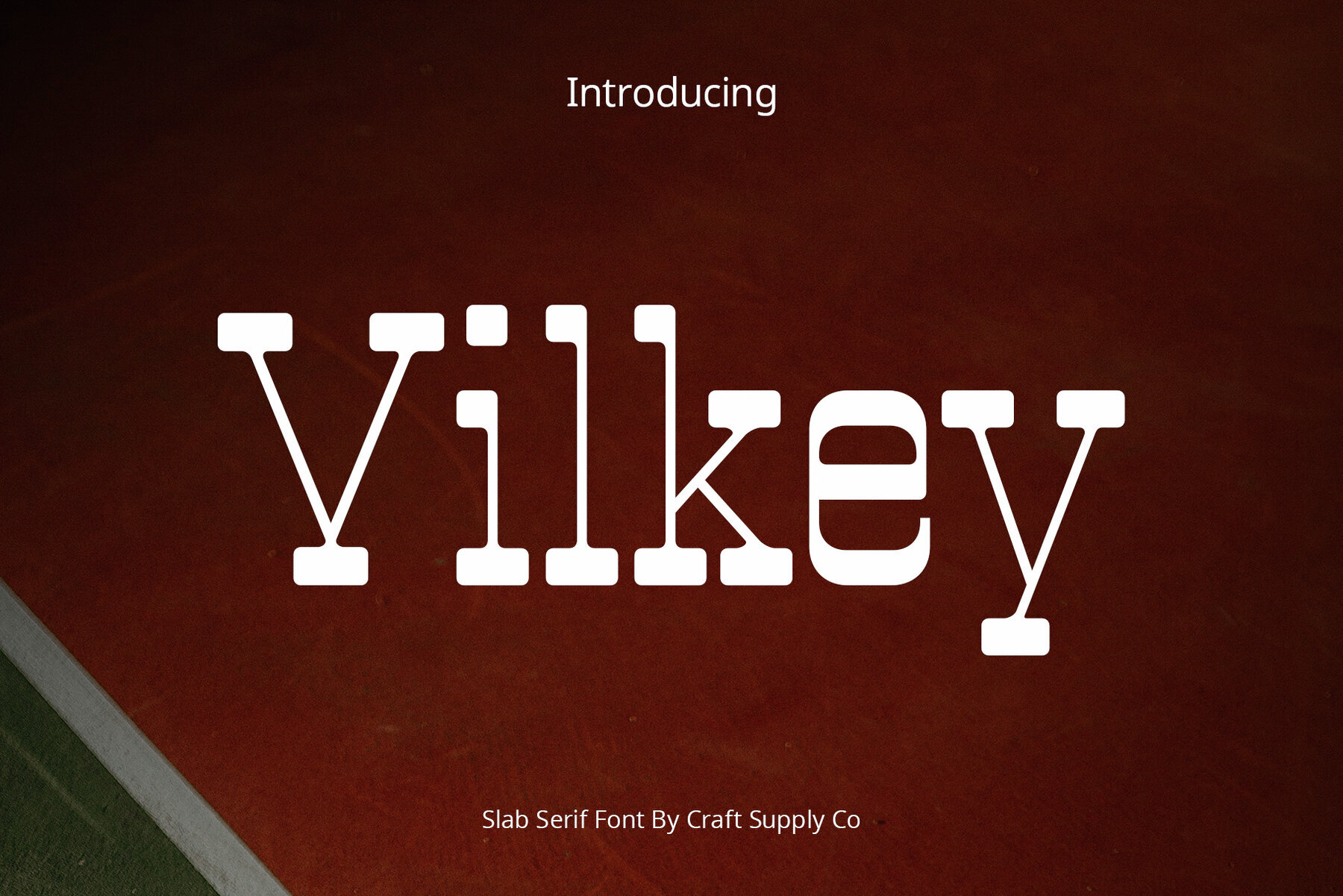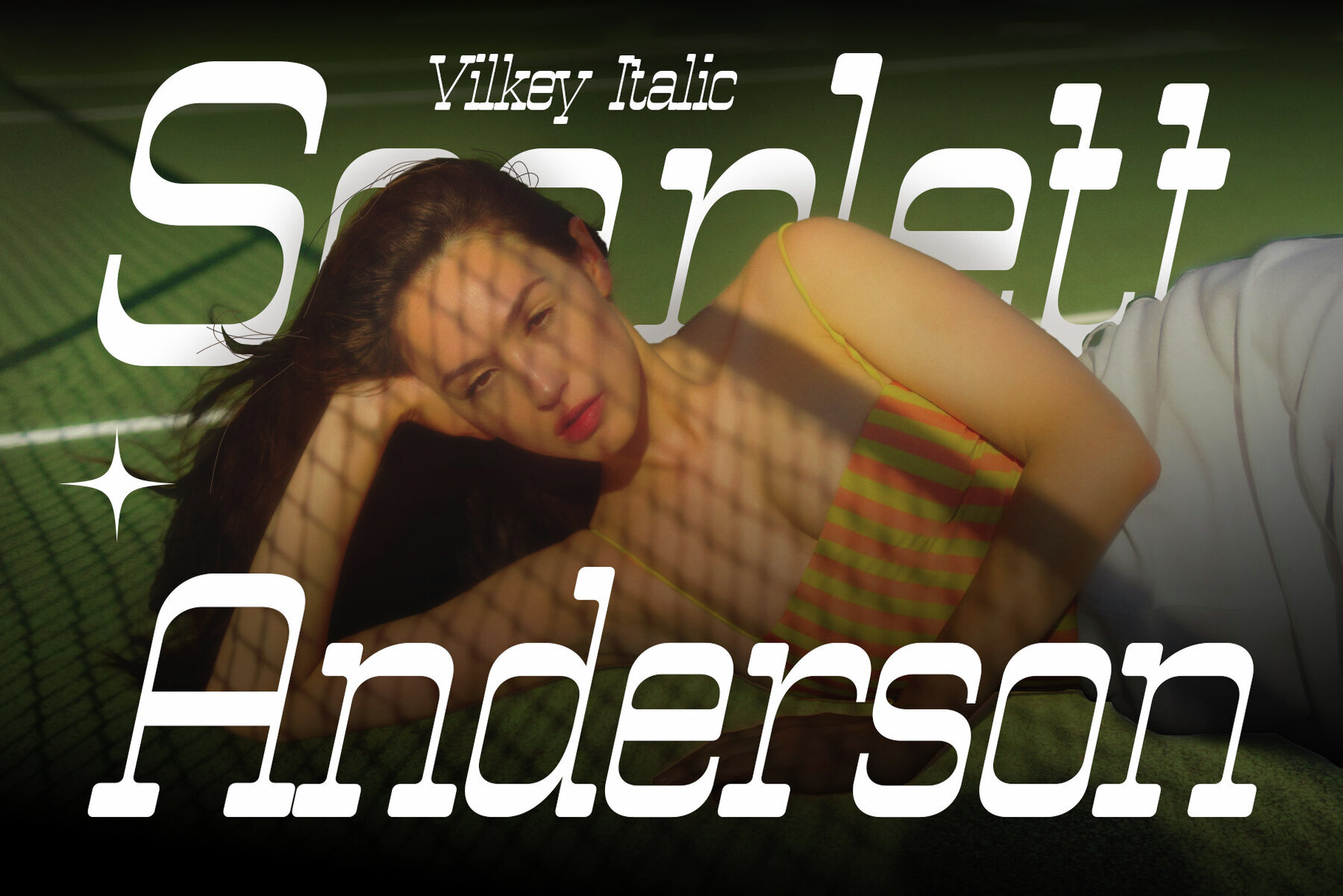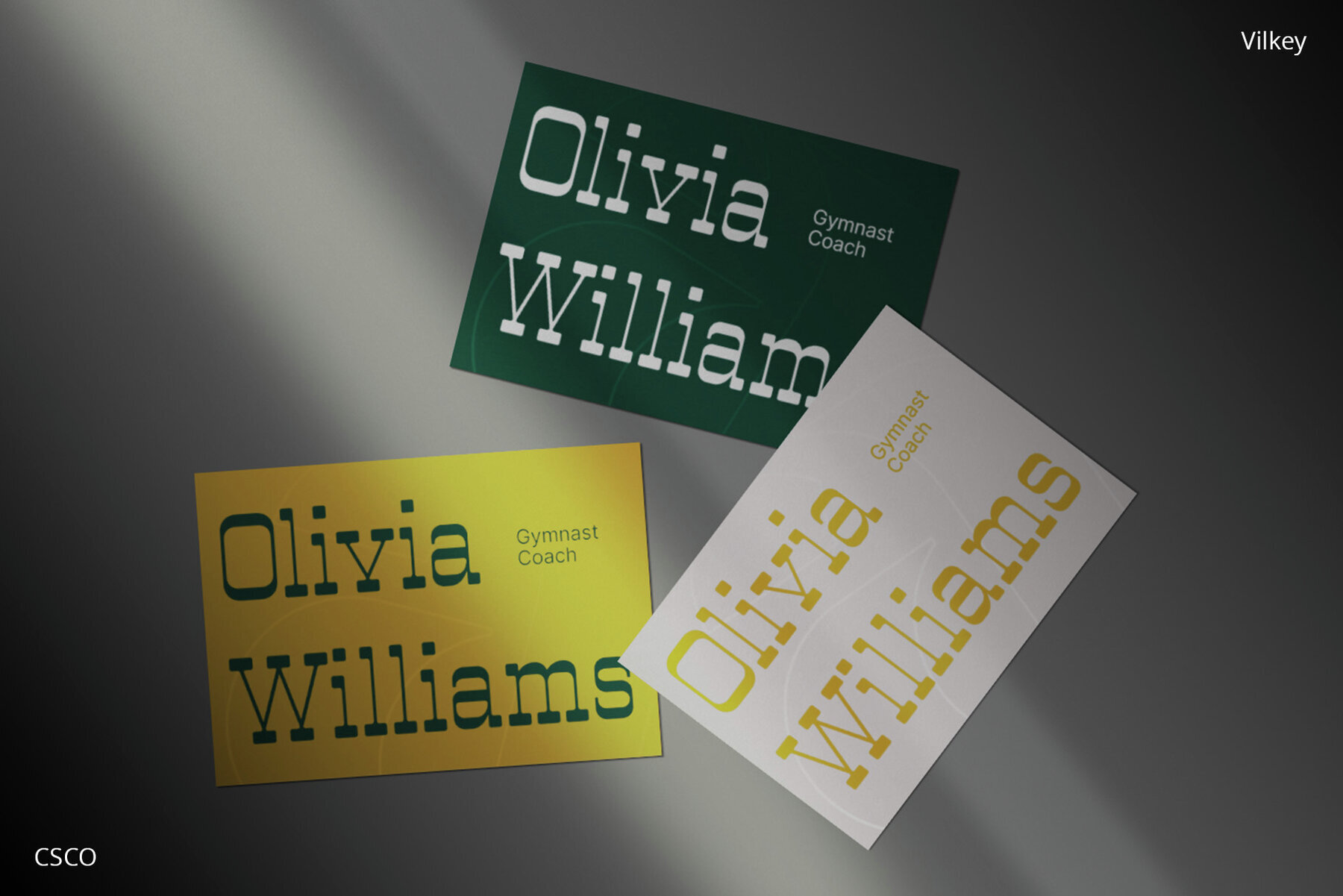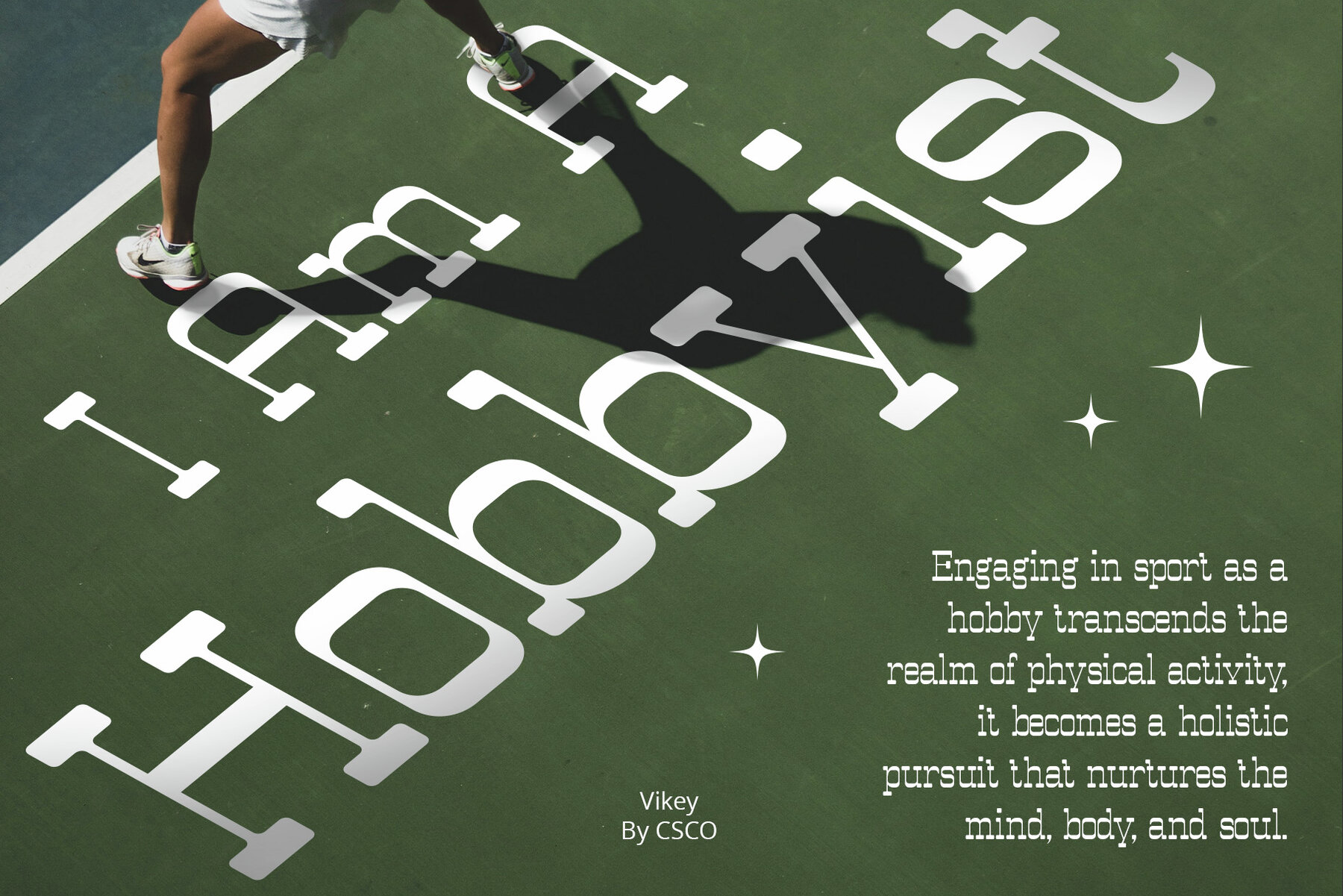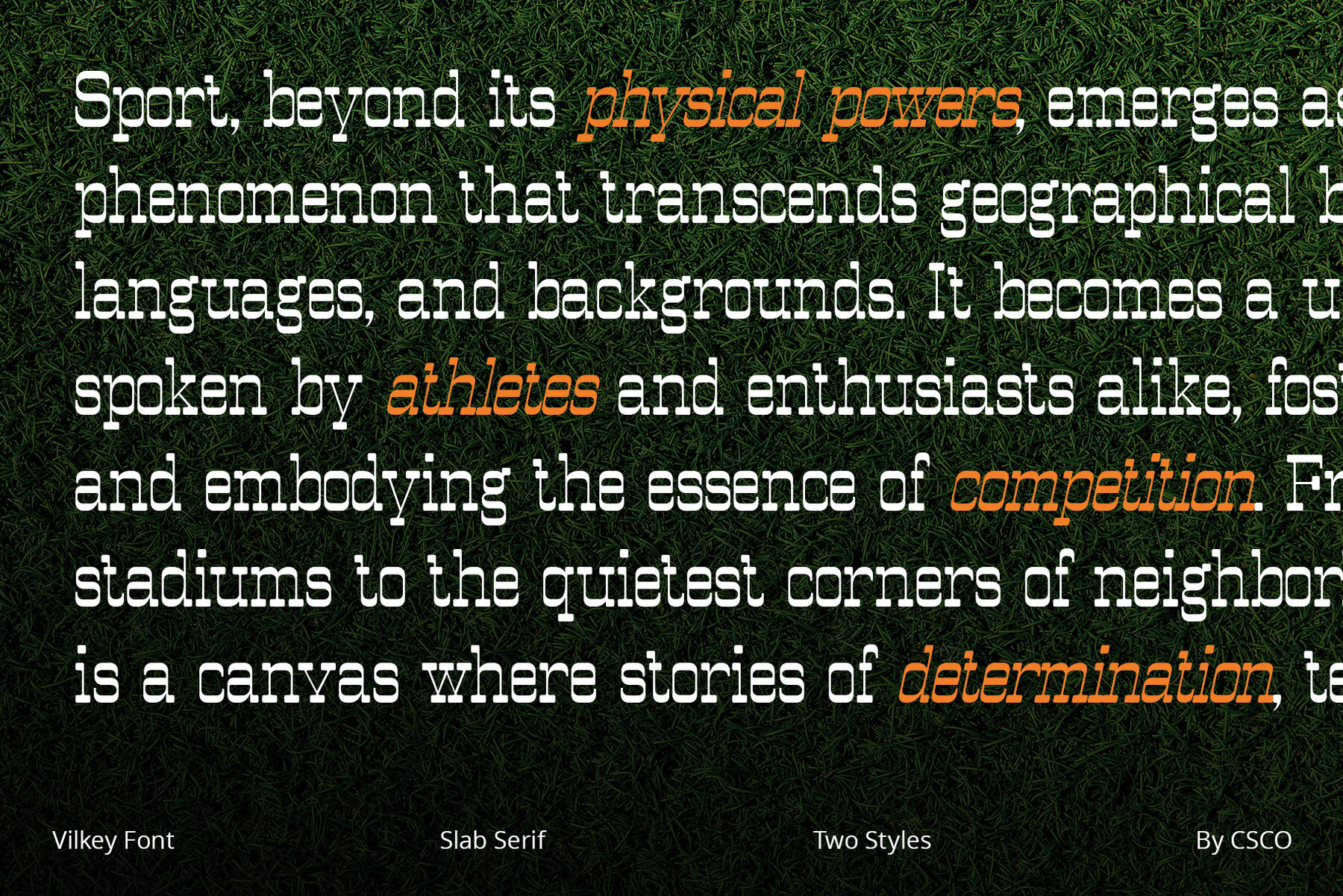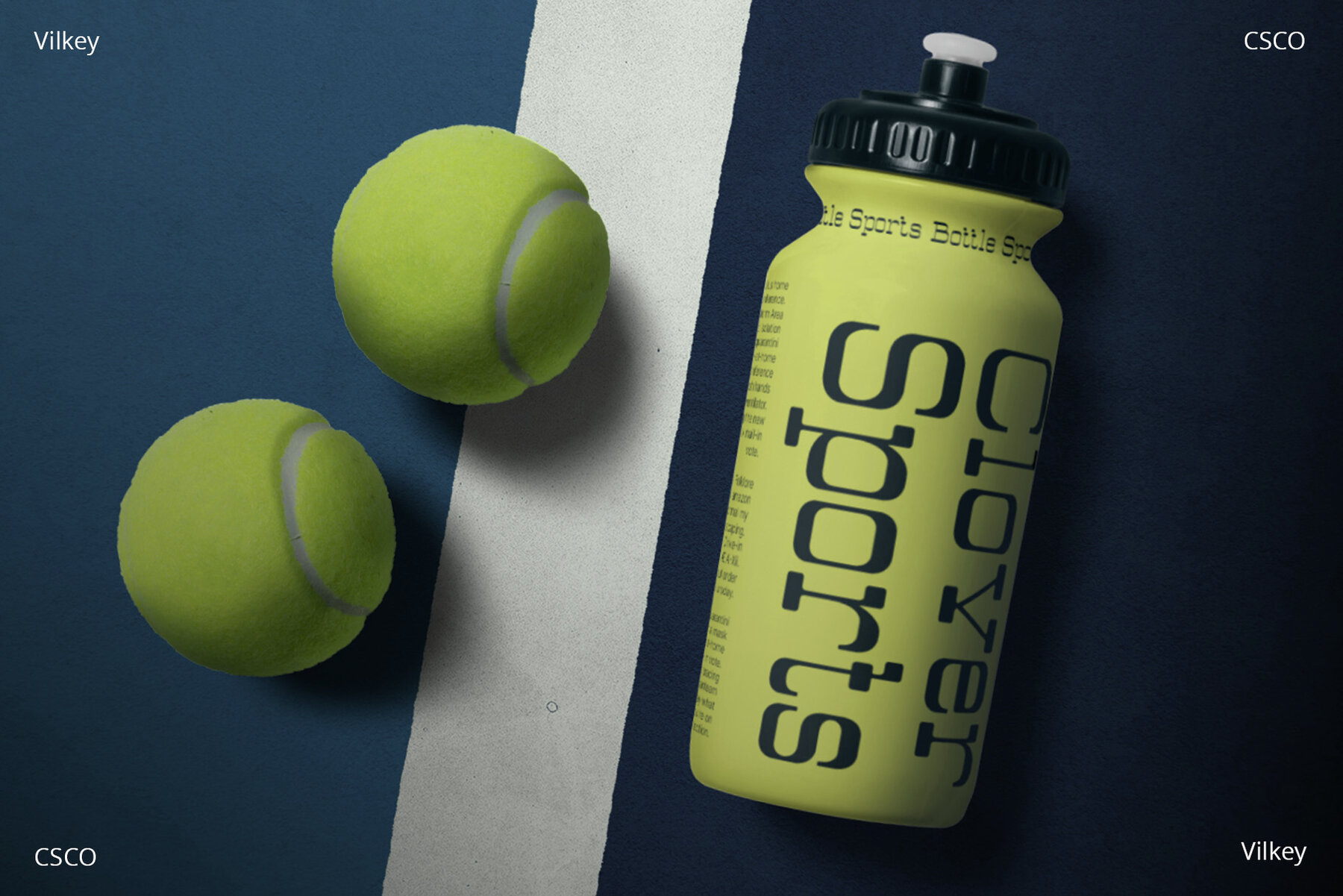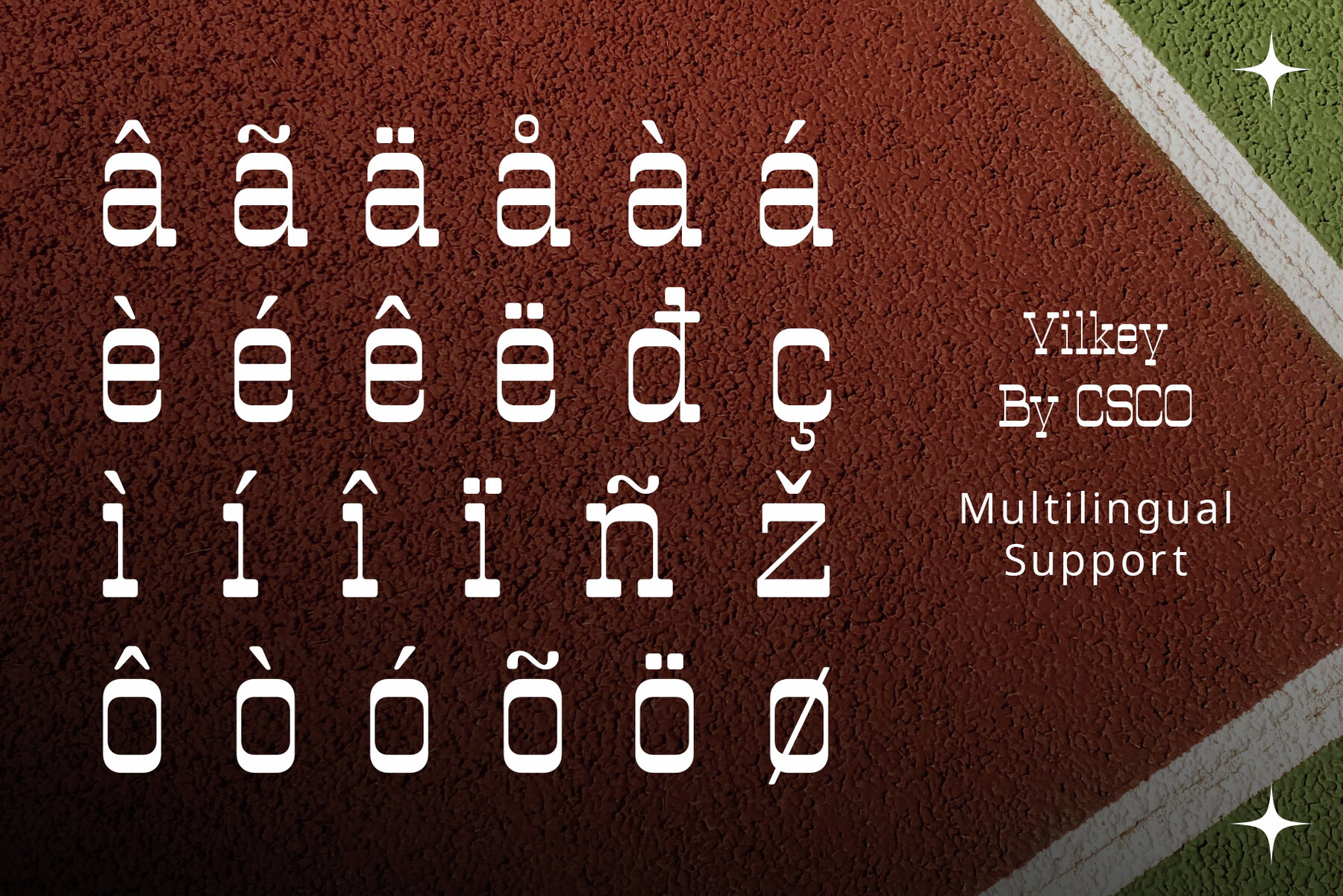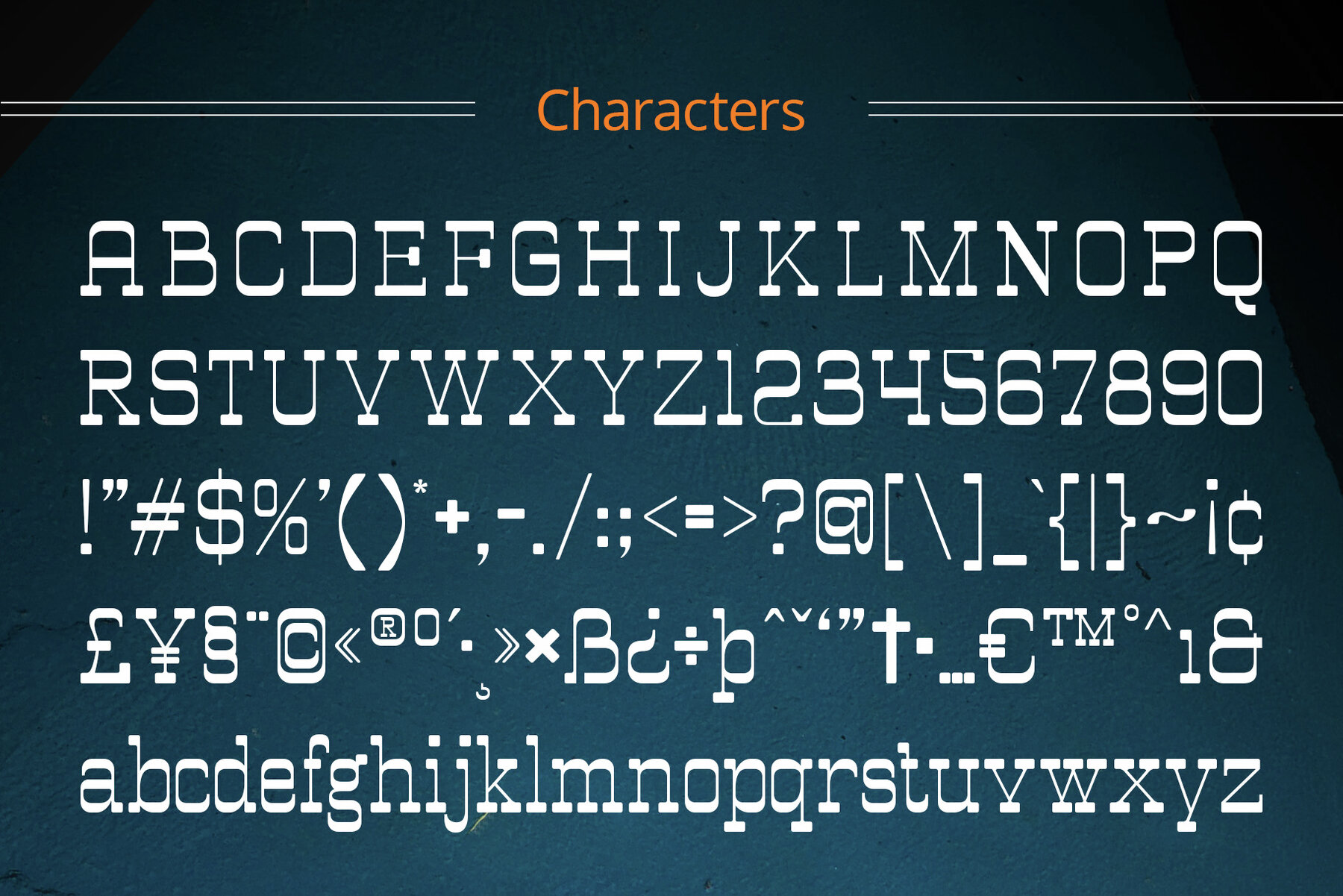
Vilkey Font
Vilkey captures the essence of sports with its slab serif style, offering a dynamic choice for athletic and sports culture projects. The robust letterforms of Vilkey embody strength, reflecting the energy and vigor synonymous with sports. From team logos to event posters, Vilkey adapts flawlessly, ensuring your designs stand out with impact and memorability. Vilkey’s design elements resonate with the dynamic spirit of sports, making it ideal for projects demanding a strong, athletic aesthetic. No specialized software is required to use this typeface. If you have any inquiries or need assistance, please feel free to contact us. We appreciate your support in enhancing your creative projects!Vilkey: A Sporty Slab Serif for Dynamic Typography
Bold and Impactful Letterforms
Versatility Across Sporting Platforms
Energizing Design Elements